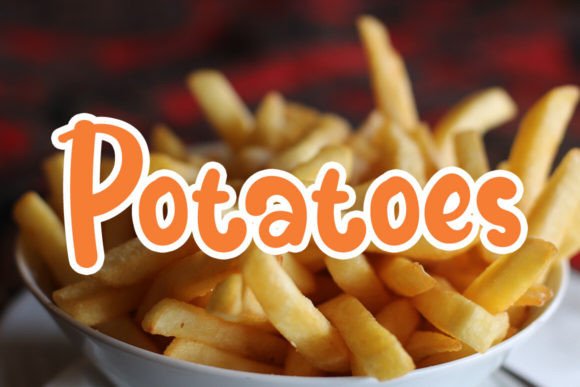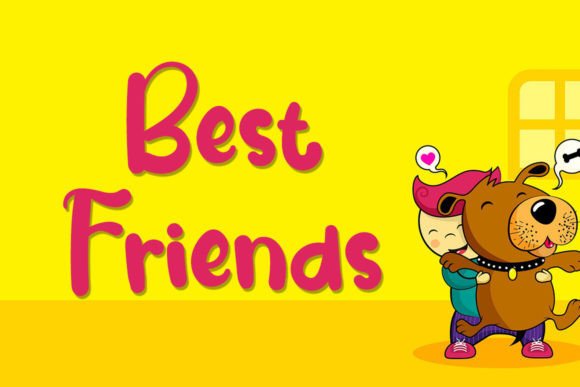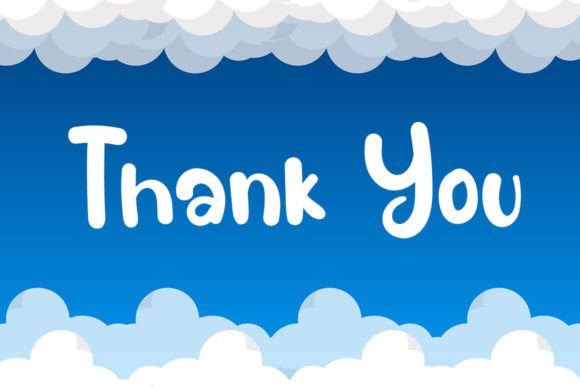
Introducing Amsterdunk Font: The Epitome of Elegance and Sophistication
In the realm of typography, few fonts have managed to capture the essence of freshness, purity, and elegance as effortlessly as the Amsterdunk Font. This splendid and charming typeface has emerged as a game-changer for designers and crafters seeking to infuse their projects with a captivating touch of joy and sophistication. Whether you’re working on a formal or casual project, Amsterdunk Font is the perfect companion to heighten the allure of your creations.
Unleashing Creativity and Multiplicity
One of the standout features of Amsterdunk Font is its adaptability. This font seamlessly lends itself to multiplicity and creativity, allowing designers to experiment with various styles and aesthetics. Whether you’re crafting a logo, brochure, or website, Amsterdunk Font brings an enviable flavor of sophistication that is sure to transform your business aesthetic into an absolute visual treat.
The Beauty of Simplicity
Integrating Amsterdunk Font into your designs guarantees beauty with simplicity – a testament to refined taste and classy choices. This font embodies the perfect balance of elegance and playfulness, making it an excellent choice for designers seeking to create visually stunning projects without compromising on readability. With Amsterdunk Font, you can elevate your designs to new heights, effortlessly conveying your message with style and poise.
Why Choose Amsterdunk Font?
So, what sets Amsterdunk Font apart from other typefaces? Here are a few compelling reasons why designers and crafters are flocking to this charming font:
- Fresh and Pure Aesthetic: Amsterdunk Font boasts a unique and captivating design that exudes freshness and purity, making it perfect for projects that require a modern and youthful touch.
- Elegant and Sophisticated: This font’s elegant lines and curves bring a touch of sophistication to any project, elevating your designs to new heights of visual excellence.
- Adaptable and Versatile: Amsterdunk Font is incredibly versatile, making it suitable for a wide range of applications, from formal and corporate designs to casual and creative projects.
- Easy to Read: Despite its elegant design, Amsterdunk Font remains highly readable, ensuring that your message is conveyed clearly and effectively.
Amsterdunk Font’s versatility makes it an excellent choice for various design applications, including:
- Branding and Logo Design: Create a lasting impression with a unique and captivating logo that showcases your brand’s personality.
- Print Materials: Elevate your brochures, flyers, and business cards with a touch of elegance and sophistication.
- Digital Designs: Use Amsterdunk Font to create visually stunning websites, social media graphics, and email newsletters that leave a lasting impression.
In conclusion, Amsterdunk Font is a splendid and charming typeface that embodies the perfect balance of elegance, sophistication, and playfulness. Its adaptability, versatility, and readability make it an excellent choice for designers and crafters seeking to elevate their projects to new heights of visual excellence. By integrating Amsterdunk Font into your designs, you’re guaranteed to create visually stunning projects that convey your message with style and poise. So why wait? Discover the beauty and charm of Amsterdunk Font today and transform your designs into absolute visual treats!